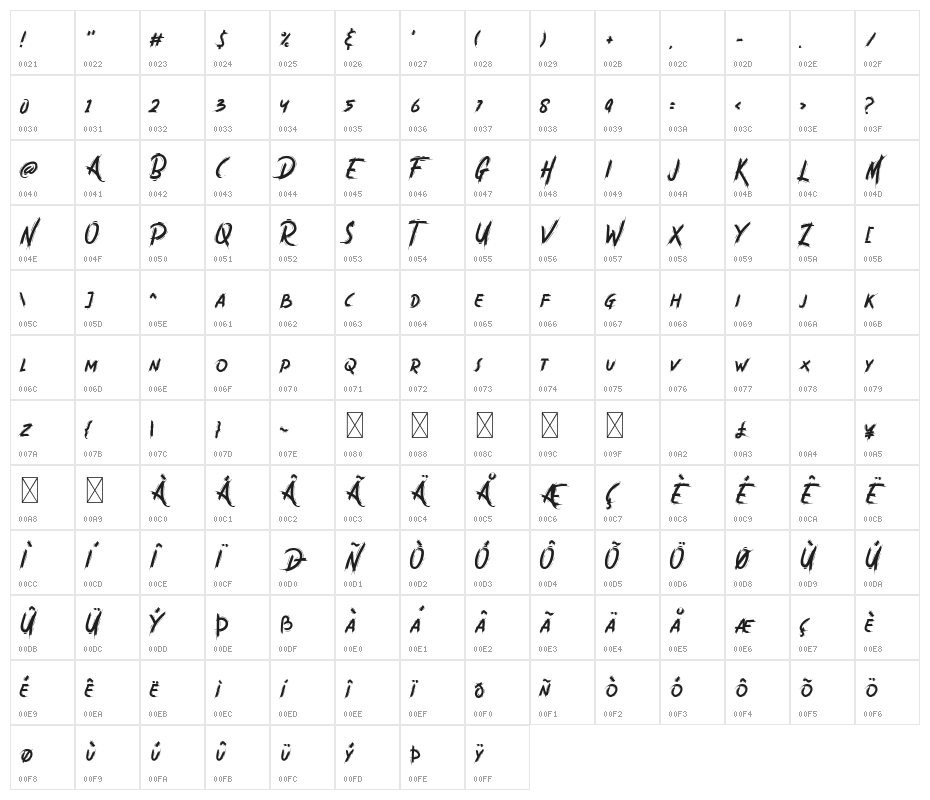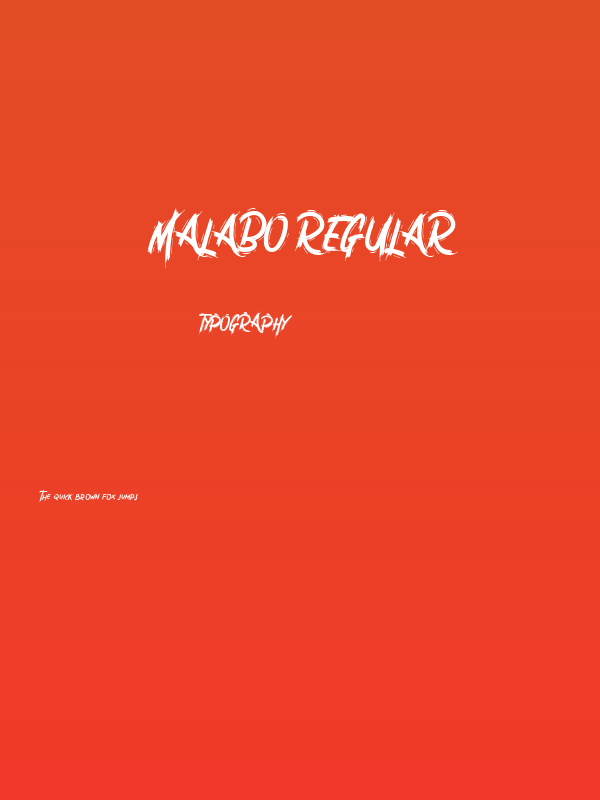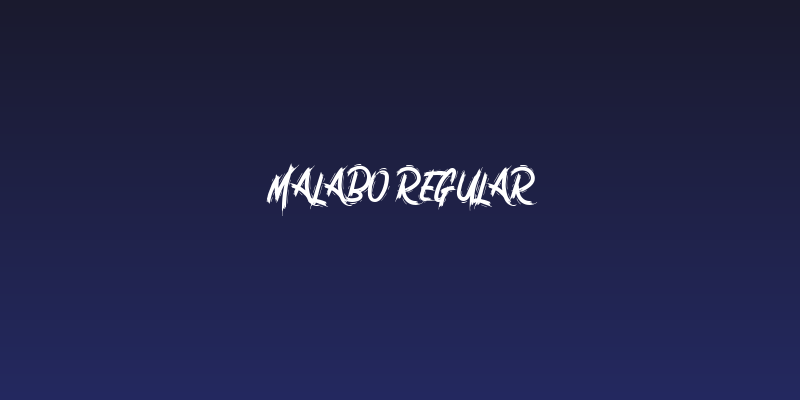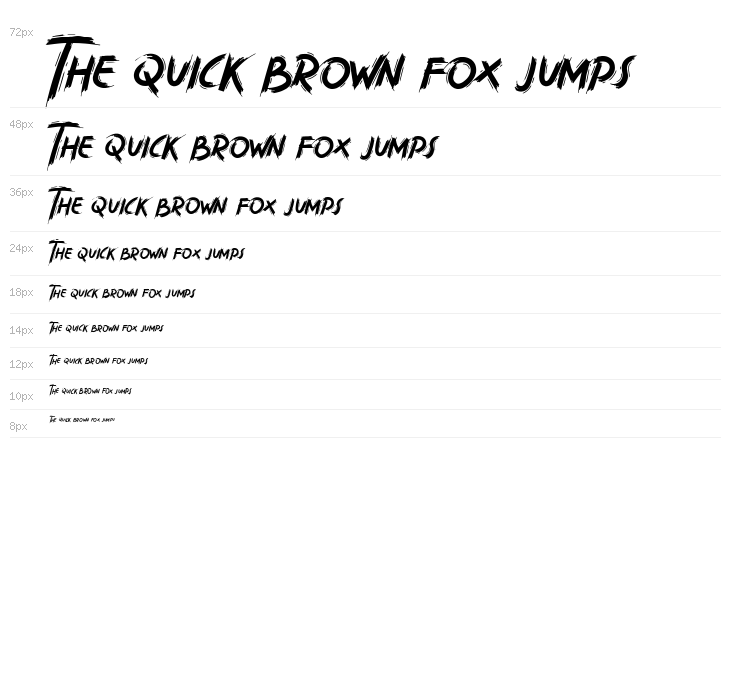
Malabo Regular Font
Malabo Regular Description
This font features a bold and dynamic style with a brush-like appearance, giving it an energetic and edgy feel. The strokes are uneven and jagged, creating a sense of movement and intensity. The uppercase and lowercase letters maintain this rugged aesthetic, while the numbers and special characters follow suit, ensuring consistency throughout. The font's unique design makes it stand out, ideal for projects that require a strong visual impact.
| Overall Style | Modern, Edgy |
| Proposed Projects | Perfect for posters, album covers, sports branding, or any project needing a bold and energetic typeface. |